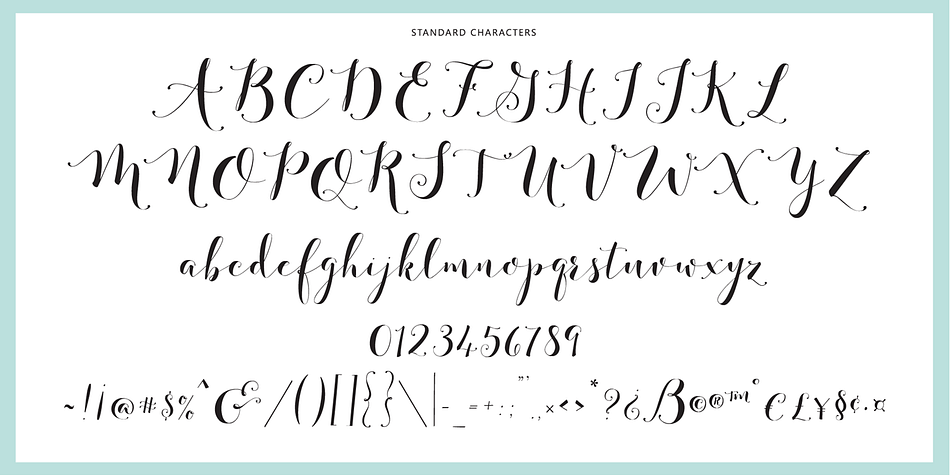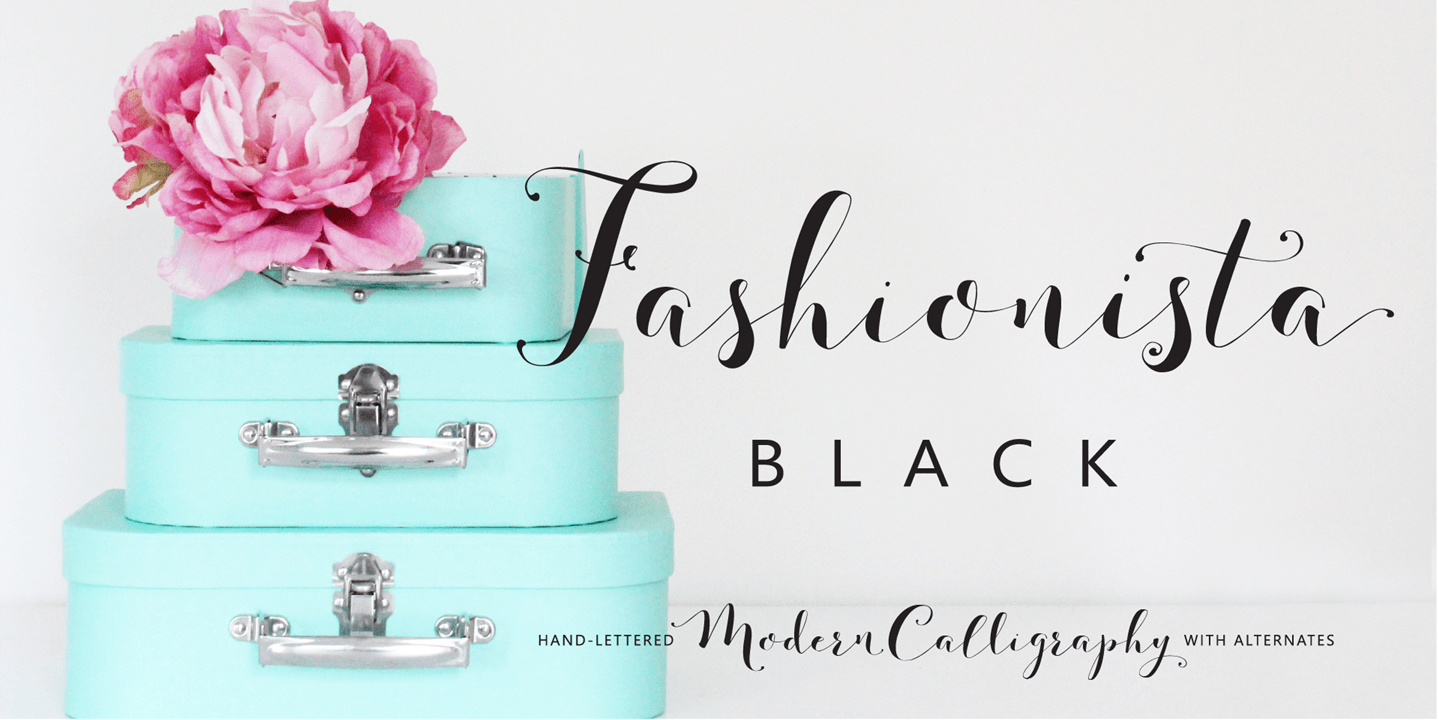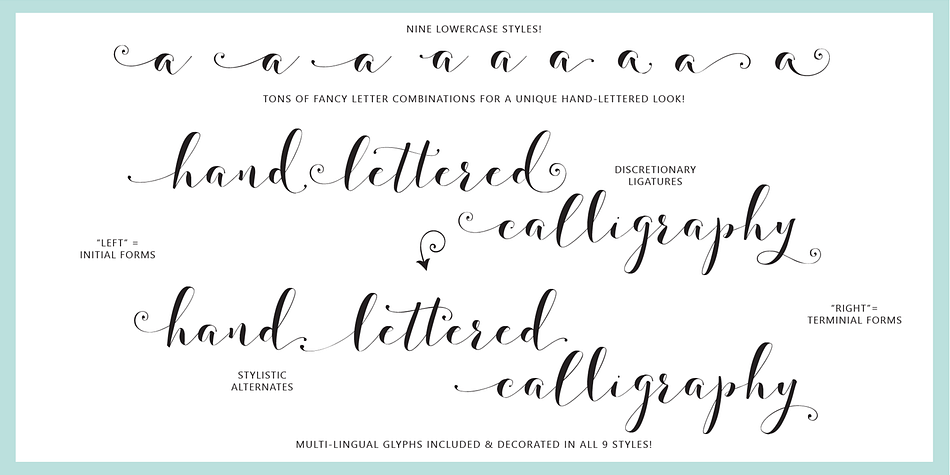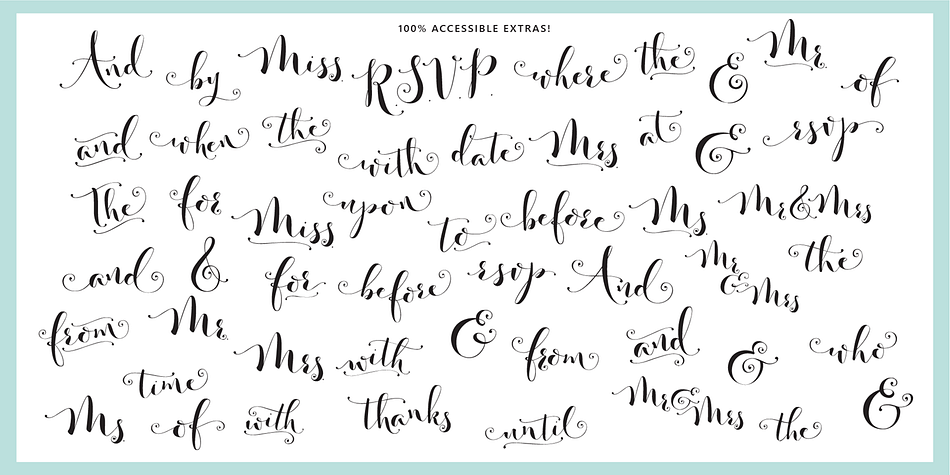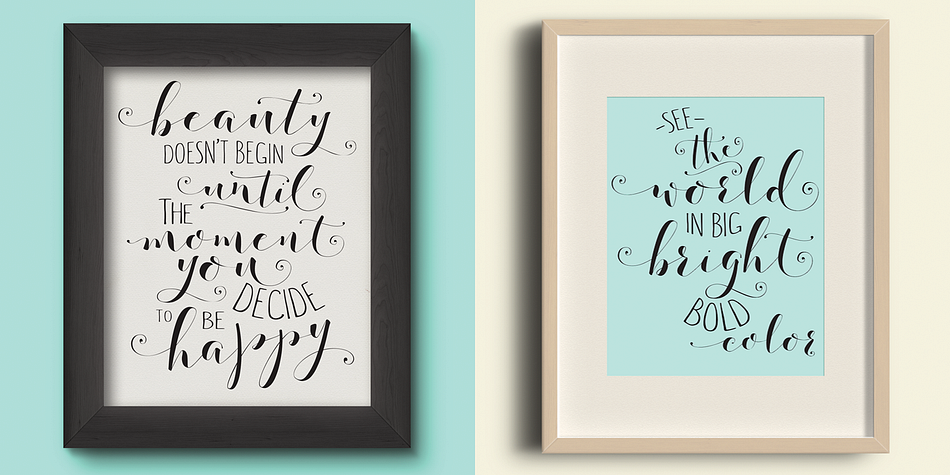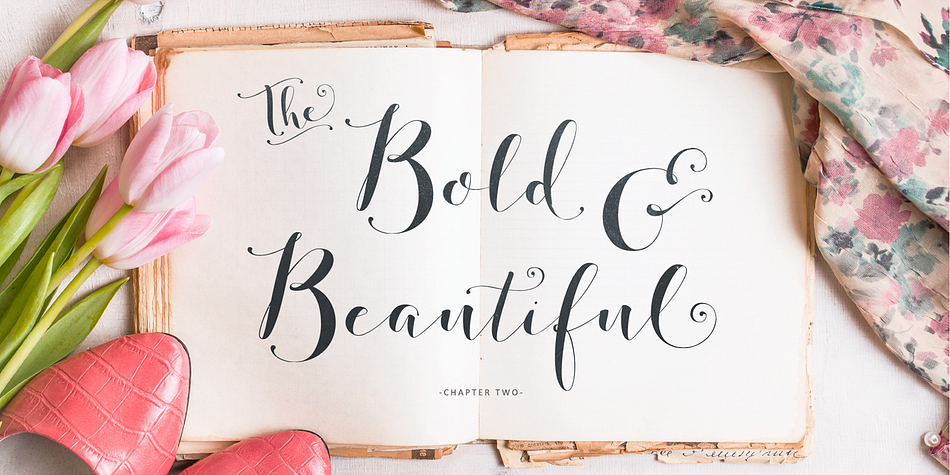
Designed by Emily Spadoni, Fashionista Black is a dingbat, script and modern calligraphy font family. This typeface has nine styles and was published by Emily Spadoni.
Introducing Fashionista Black! A Bold Version of the same contemporary and clean hand-lettered calligraphy style script. This new Bolder mix of modern and classic writing is soon to be your favorite for weddings, stationary, logos and more!
I’ve added even more! With hundreds of alternate letters and decorative stylistic letter combinations, everything you create will be completely unique. And it’s so much fun to create your own hand-lettered text styles.
9 Lower-case styles
Ampersands, Catchwords and Greetings
Stylistic Common Letter Combinations
Multi-lingual Glyphs
International and Special Punctuation